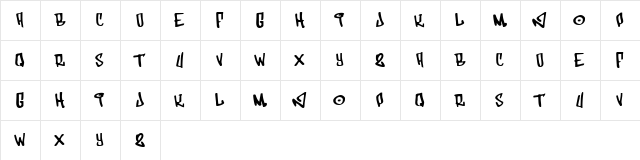
Funk Funk
Design Context for Funk Typeface
Funk has an approachable, lighthearted character — its loose, expressive forms are well-suited to children's content, casual branding, and fun-first design.
Great for children's books, toy packaging, family event branding, and casual consumer-facing design.
Font Pairing: Pairs well with a rounded or humanist sans for body copy, maintaining the friendly tone without relying on Funk to carry extended reading.
Pro Tip: Avoid using Funk for long passages of text — it works best for headlines, labels, and short calls to action.